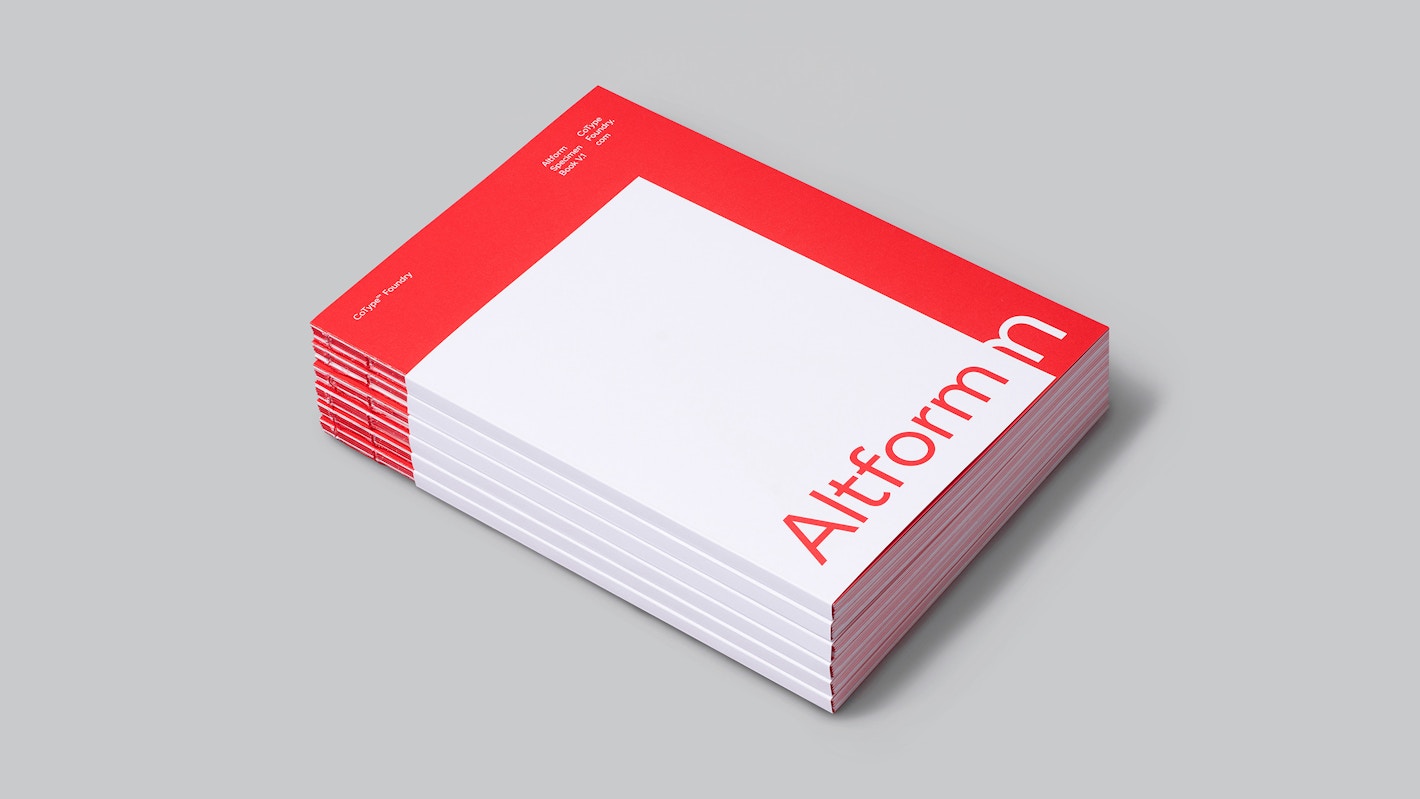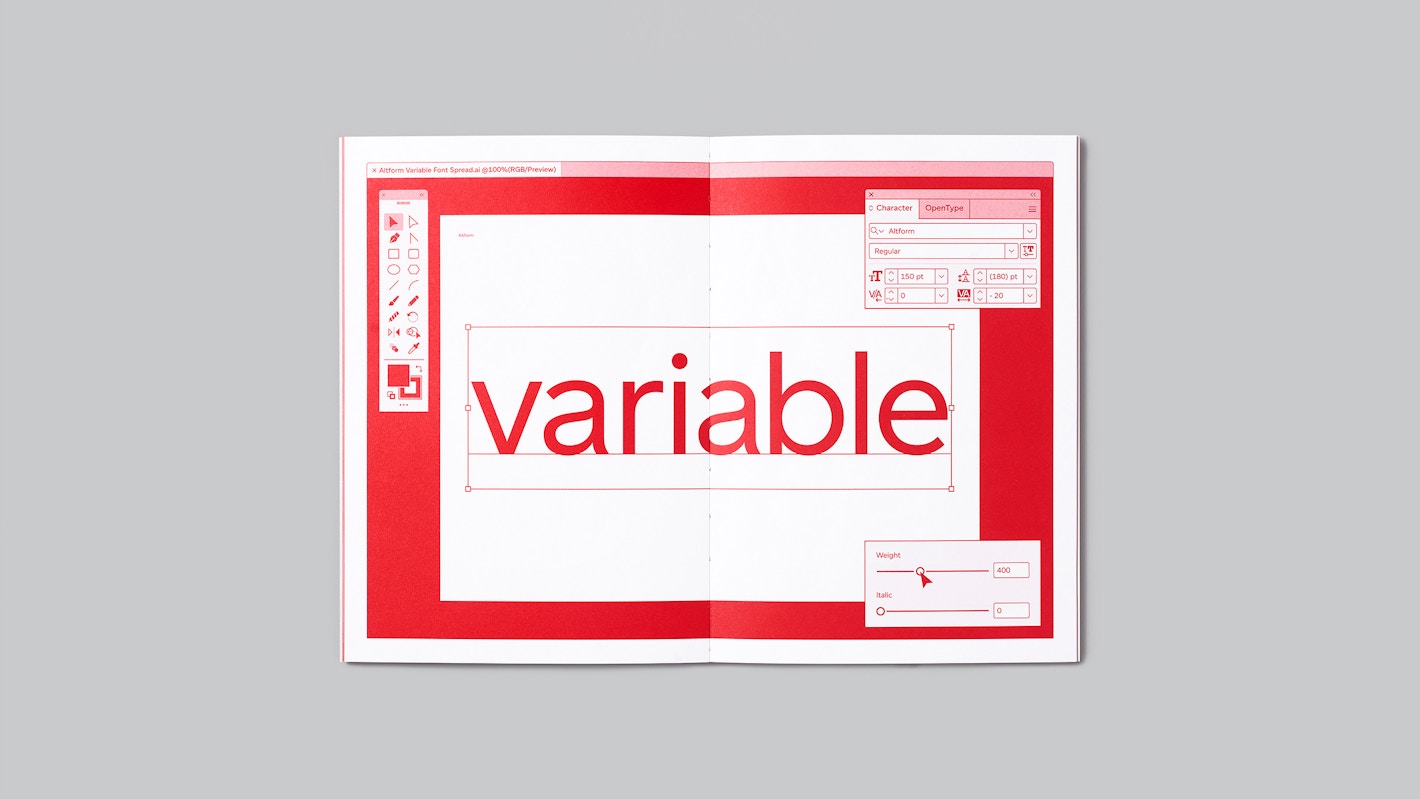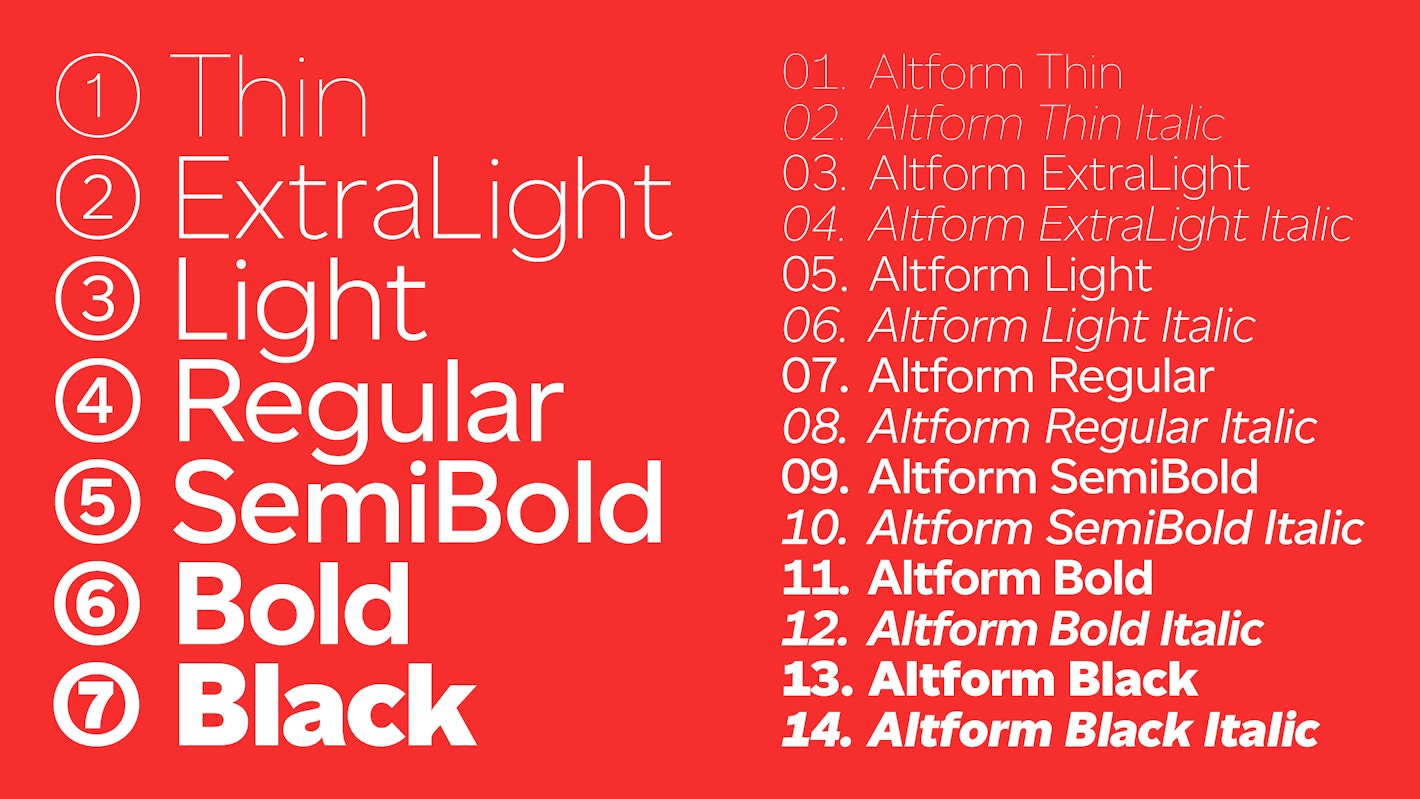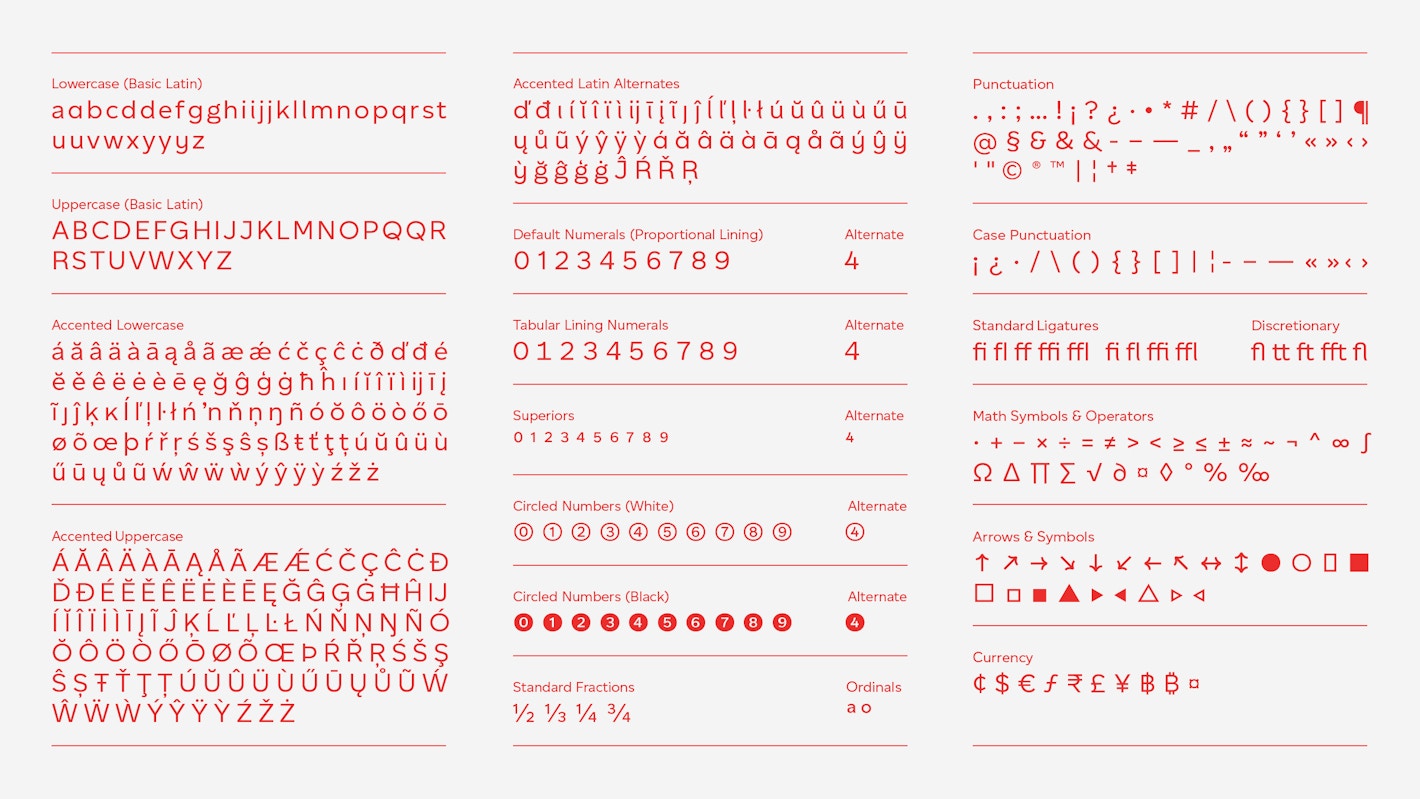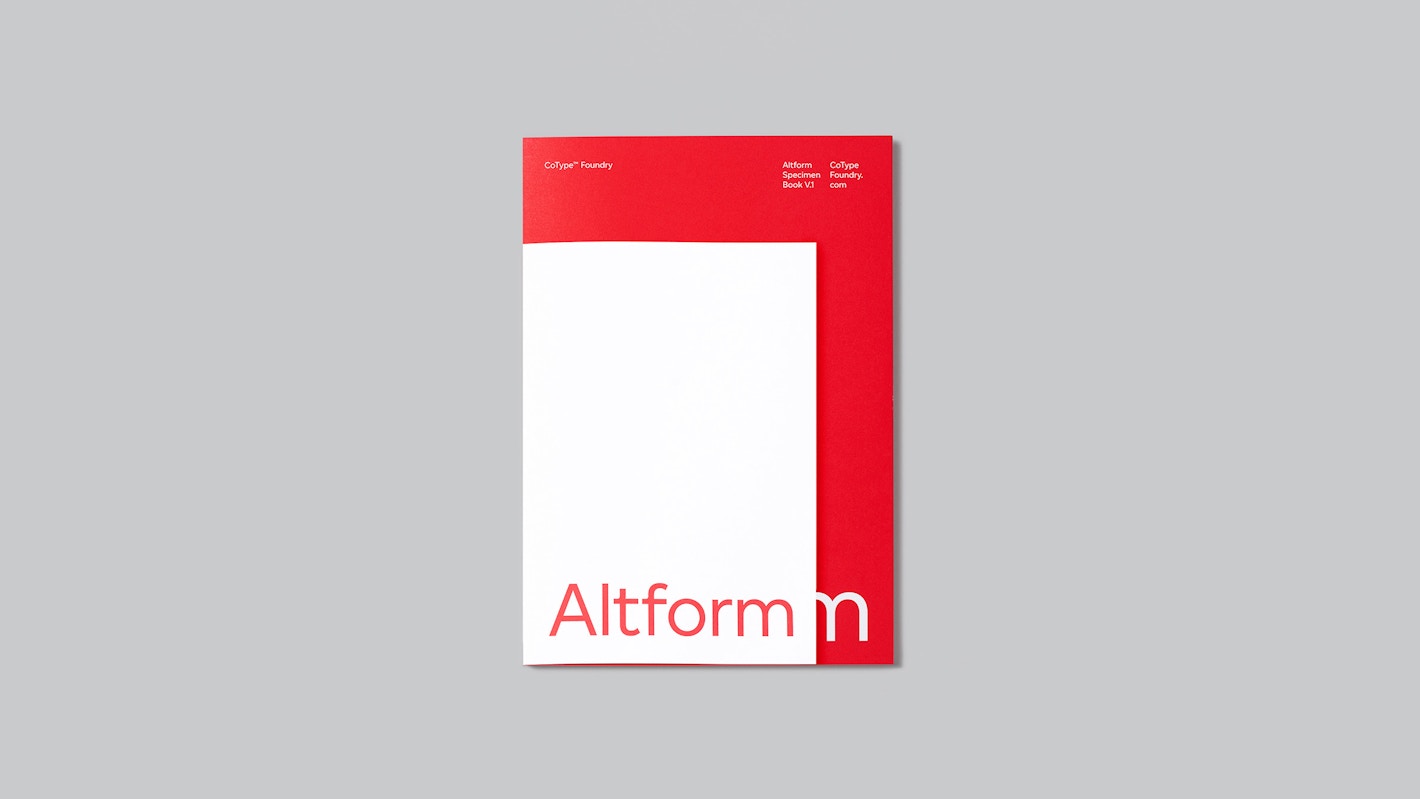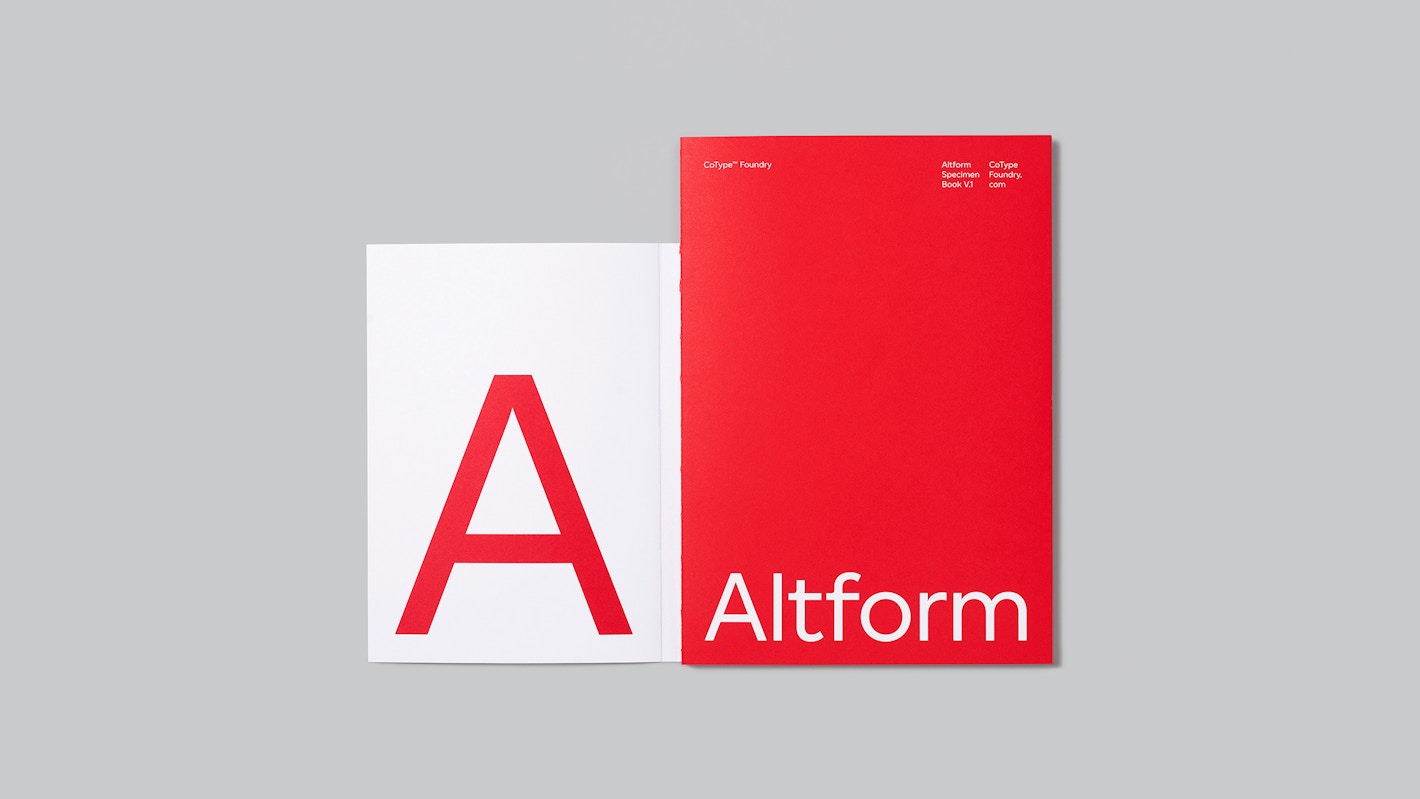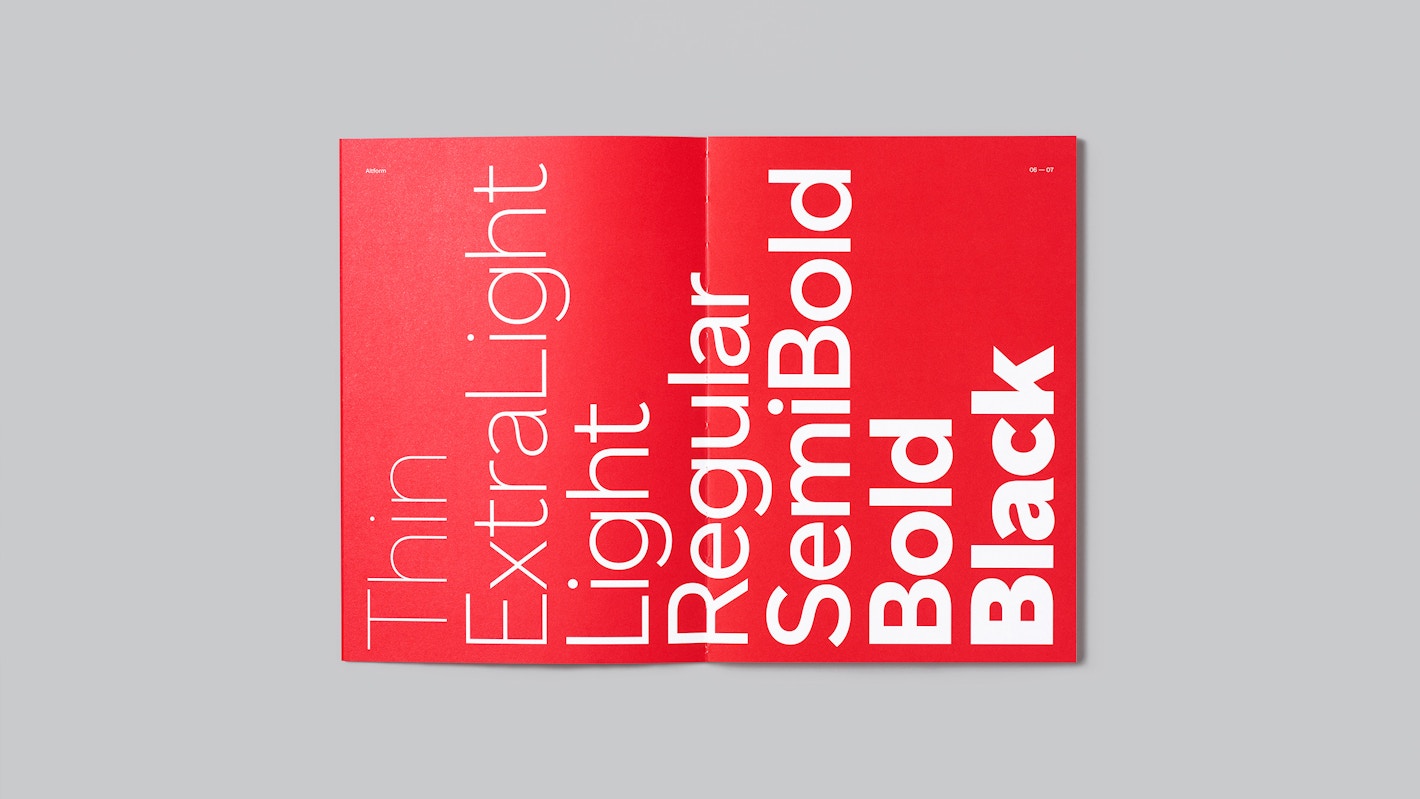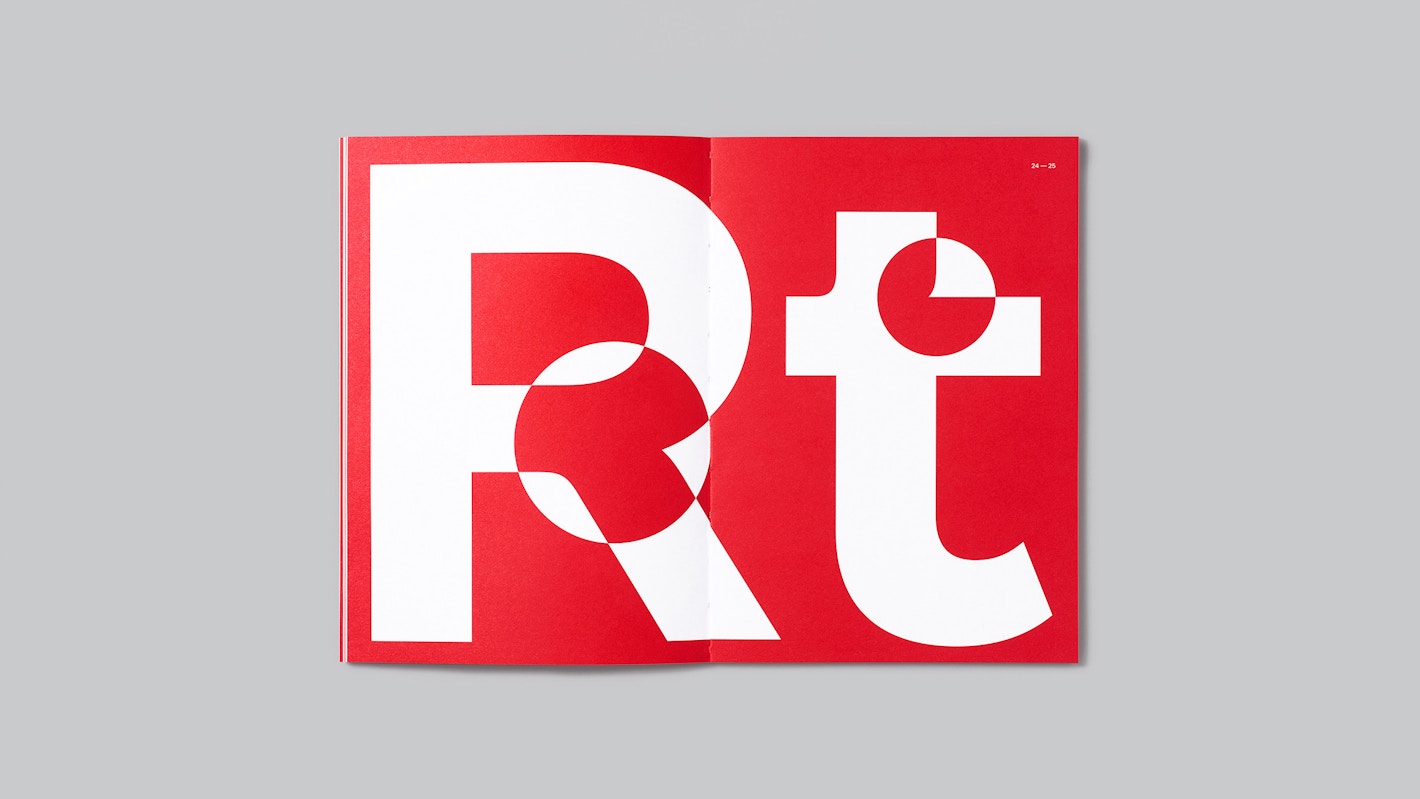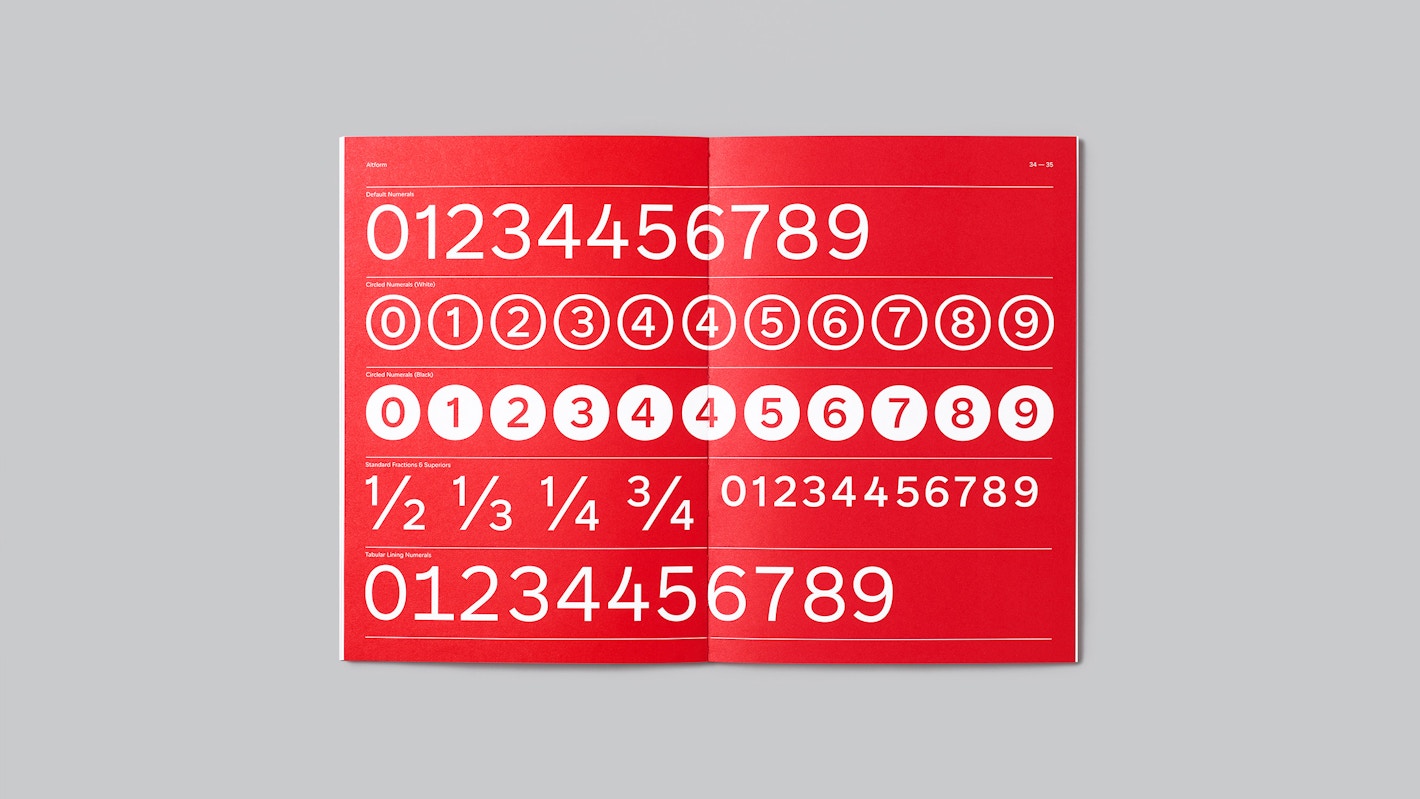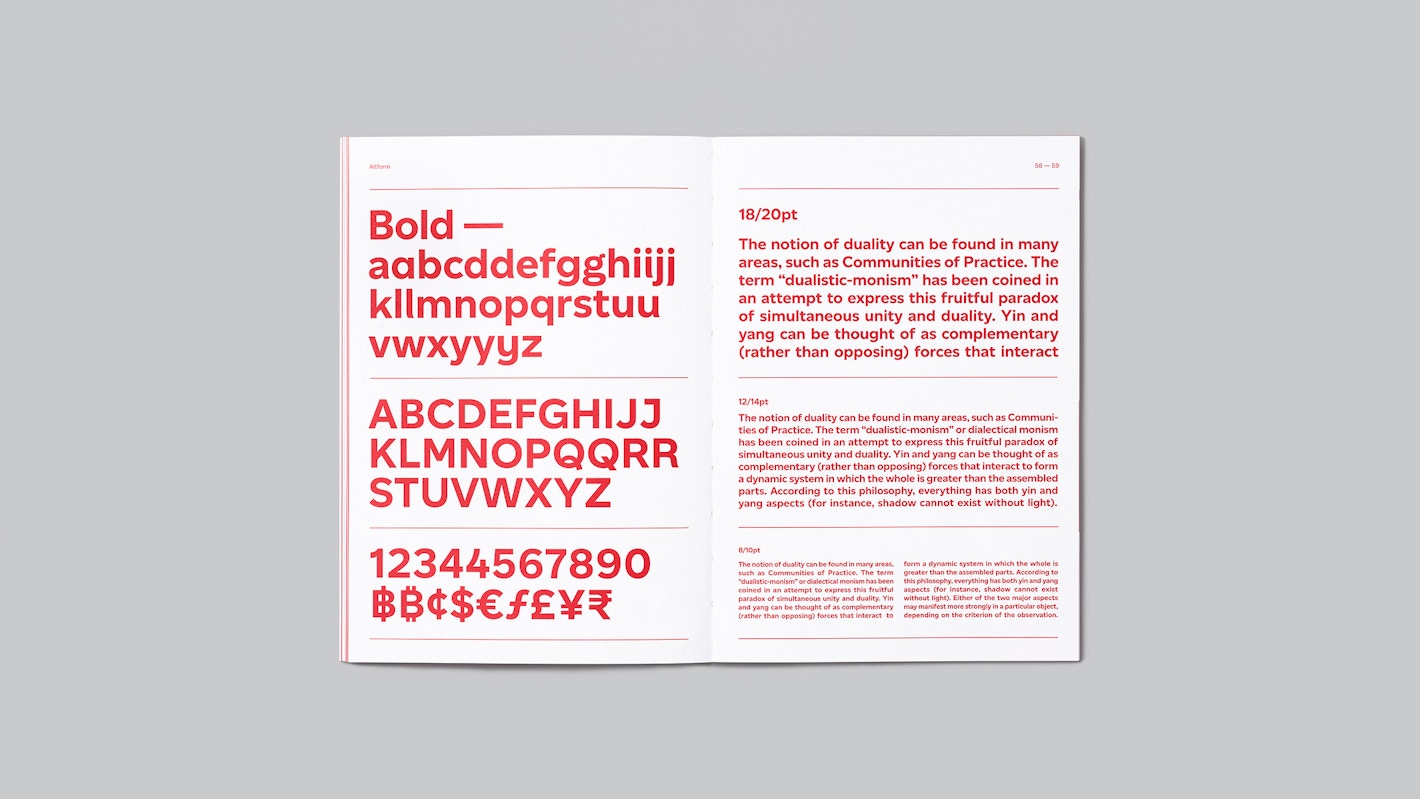
Altform is a solid and deceptively simple sans-serif family with a distinctive alter ego. Combining the neutrality of a geometric sans with the personality of a grotesque, Altform has universal appeal. On closer inspection, its subtle details—like the exquisite curves in characters such as ‘R,’ ‘t,’ and ‘k’—reveal a sophisticated and recognizable character.
This seemingly straightforward typeface transforms through its OpenType features, offering 11 stylistic sets that enable alternate shapes for a tailored look. Among these are the “wind-blown” alternates for ‘d,’ ‘i,’ ‘j,’ ‘l,’ ‘u,’ and ‘y,’ which feature slight curvature in the stems for a dynamic quality. Other notable alternates include a single-storey ‘a’ and ‘y’ for geometric simplicity, as well as options for ‘g,’ ‘J,’ ‘Q,’ ‘R,’ and ‘4.’ Three distinct ampersands, weight-matched arrows, circled numerals, and geometric symbols round out the toolkit, making Altform ideal for complex editorial and branding projects.
Altform is available in seven weights, each with matching italics, ranging from Thin to Black. Its extensive language support spans most European languages written in the Latin script. Variable font technology further enhances its versatility, offering hundreds of weight grades and a custom italic axis that allows users to adjust the slant angle between 0° (upright) and 10° (default italics).
Designed to be functional and adaptable, Altform thrives in both display and text settings. The Thin and Black weights make bold statements at large sizes, while the intermediate weights ensure excellent legibility in running text. With its wealth of alternate shapes and customization options, Altform provides exceptional value for designers, lending itself to repeated use across varied projects.